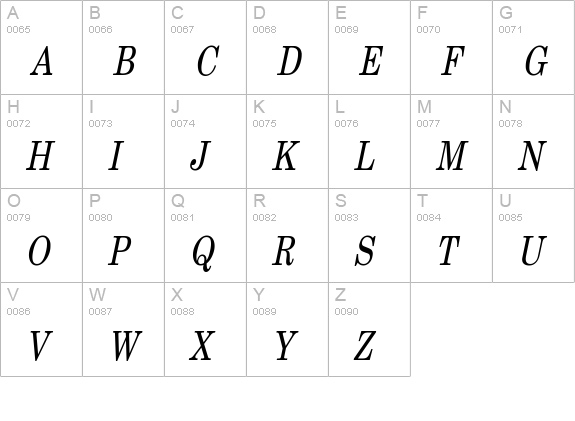
New Boston Thin Italic is a delicate, low-contrast, italic variant in the New typeface family \xE2\x80\x94 well suited to fashion editorial, minimal branding, and high-contrast display.
New Boston Thin Italic font is a sleek and modern typeface that exudes elegance and sophistication. Its slender lines and delicate curves create a sense of refinement that is perfect for adding a touch of style to any design project. The italicized style adds a sense of movement and flair, making it ideal for use in headings, quotes, and other attention-grabbing elements. What sets New Boston Thin Italic font apart is that it is available for free download at FontsMarket.com. This means that you can easily access this beautiful typeface without any cost, making it a valuable addition to your font collection. Whether you are working on a personal project or a professional design, New Boston Thin Italic font is sure to elevate your work with its elegant and contemporary aesthetic. Download it today and see the difference it can make in your designs.